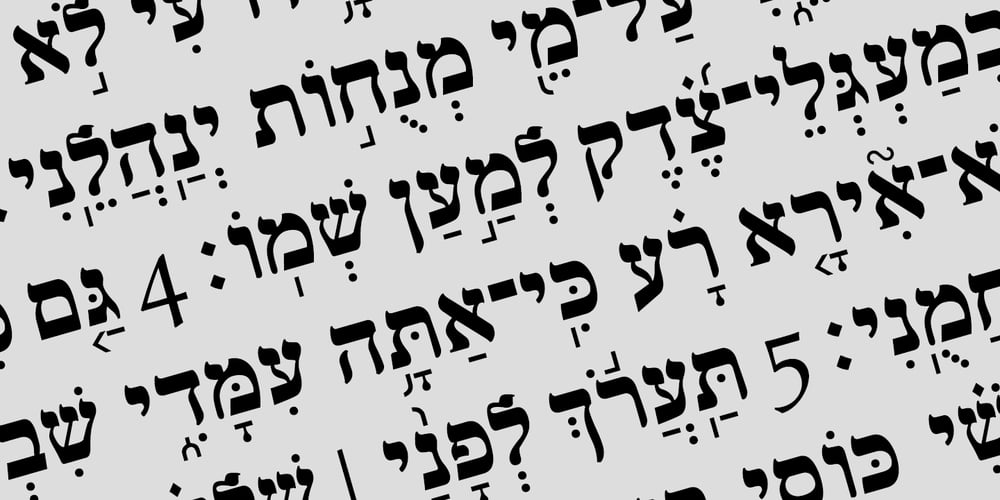
Hebrew Frank Tanach
Hebrew Frank Tanach font
Hebrew Frank Tanach Font Family was designed by Sami Artur Mandelbaum and published by Samtype. Hebrew Frank Tanach contains 2 styles and family package options. This is The Classic font of XX century.Based in a typeface created by